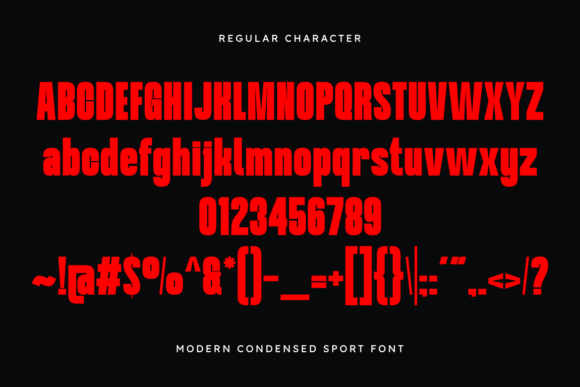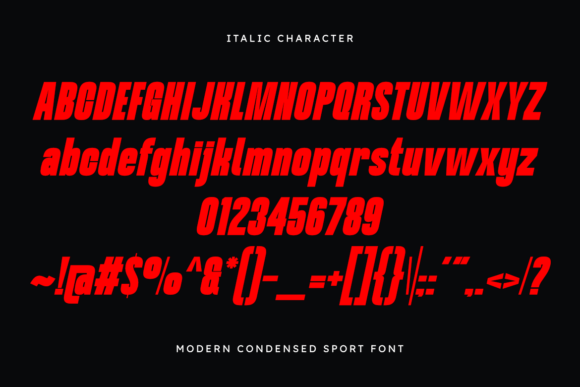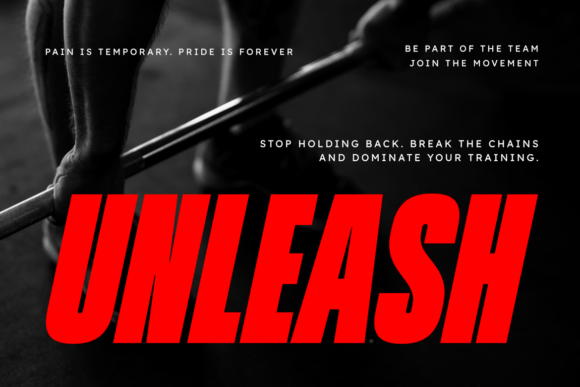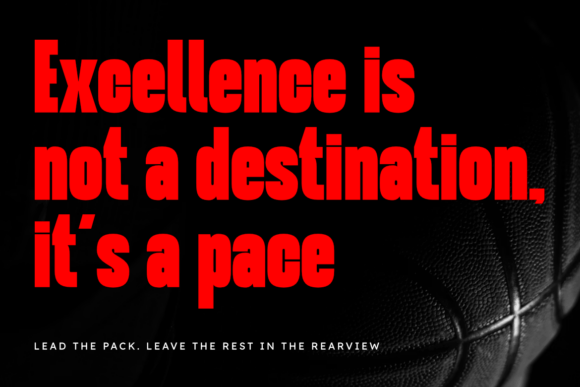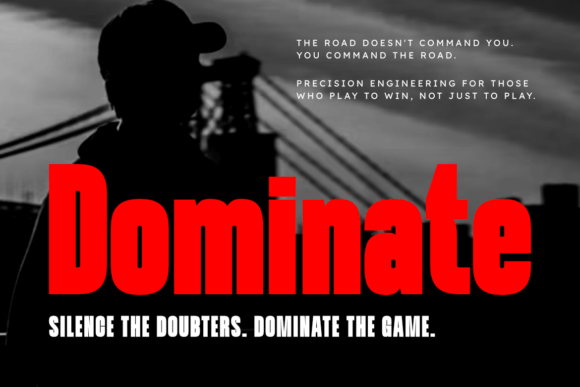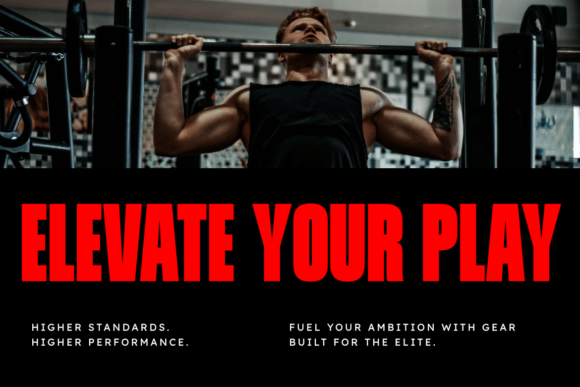
Introduction to Powersans Font Font
Fonts play a crucial role in design, and the Powersans Font font is a typeface that brings both character and versatility to any project. Whether you’re working on a branding project, a website, or a print design, the Powersans Font font offers a unique style that can elevate your work.
Powersans is a high-energy, condensed sans serif font built for speed, strength, and dominance.
Designed with solid, bold strokes and a compact structure, this typeface captures the intense spirit of modern athletics and competitive sports It is the perfect typographic engine for designs that need to feel fast, powerful, and uncompromising.
Key Features of Powersans Font Font
Why Choose Powersans Font Font?
The Powersans Font font is more than just a typeface – it’s a design tool that helps you communicate your message with style and clarity. Its unique character set and versatile design make it suitable for a wide range of applications, from elegant invitations to bold headlines.
With its carefully crafted letterforms and balanced proportions, the Powersans Font font ensures readability and visual appeal across all mediums.
What makes Powersans Font font special?
The Powersans Font font stands out with its unique design, exceptional readability, and versatility across various design applications.